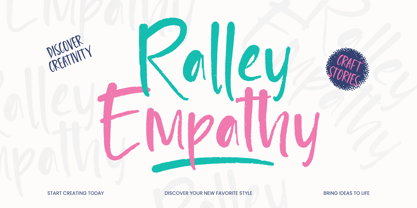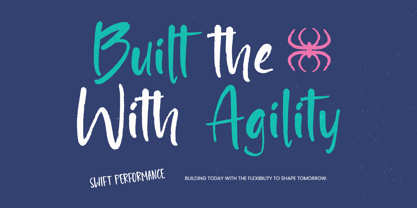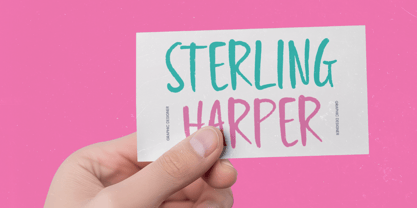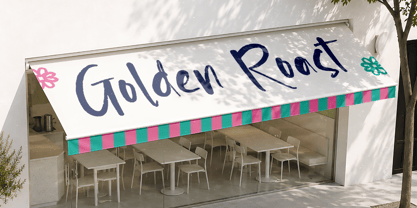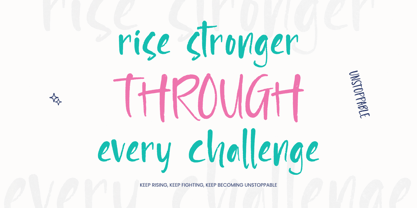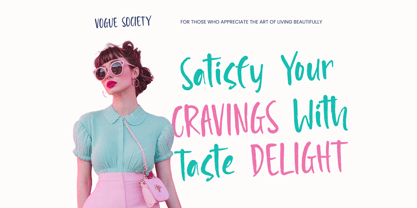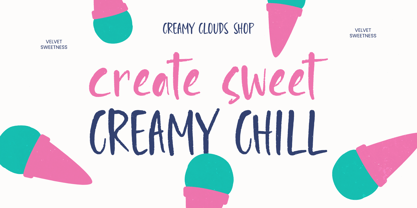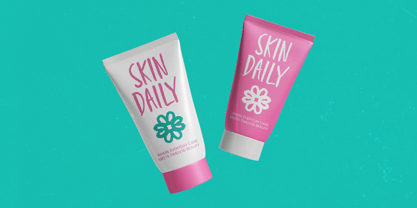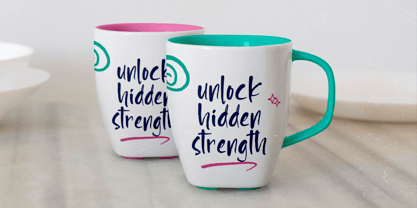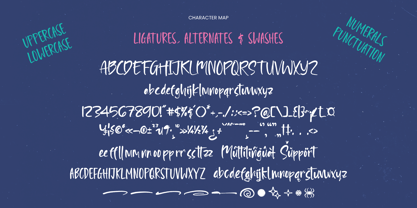
Ralley Empathy
The Ralley Empathy Font Family was designed by Heru Utama Putra and published by Letterena Studios. Ralley Empathy contains 2 styles and family package options. More about this family
Ralley Empathy - Brush Font
Elevate your creative projects with an authentic touch using a typeface that commands attention. Ralley Empathy - Brush Font is a masterfully crafted brush script that captures the raw energy and fluid movement of hand-painted strokes. Its hand-drawn aesthetic provides an organic feel that resonates with modern audiences seeking authenticity and warmth. By blending artistic flair with professional execution, Ralley Empathy - Brush Font stands out as a premier choice for designers looking to inject personality and a bold visual impact into their digital and print compositions.